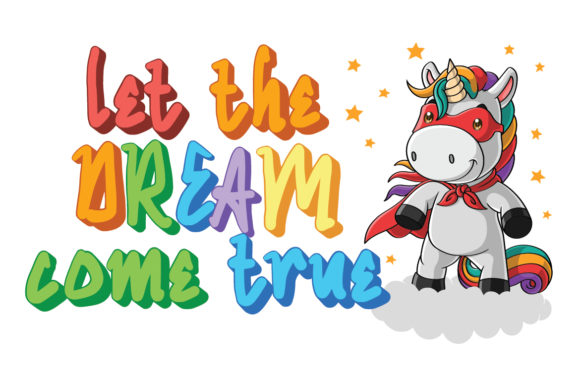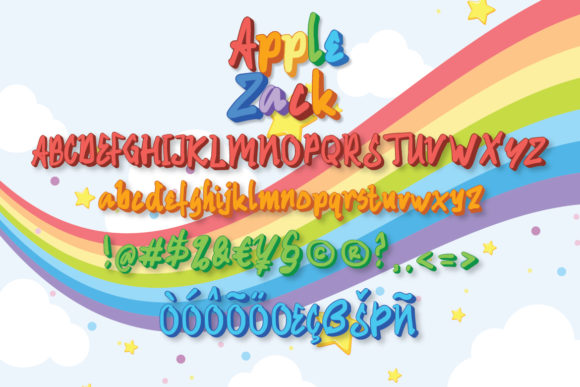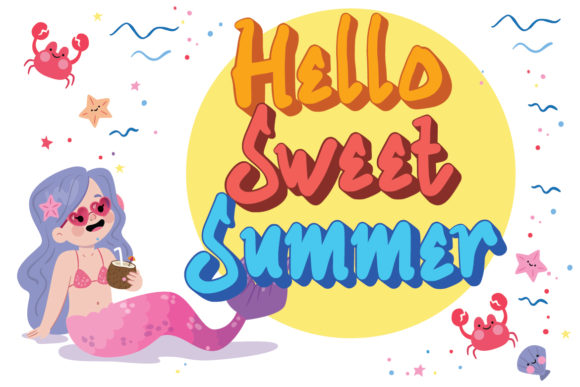
Introducing Applezack Font: Unleash Fun, Quirkiness, and Authenticity in Your Designs
Are you tired of using the same old fonts in your designs? Look no further than Applezack Font, a captivating display font that embodies fun, quirkiness, and authenticity. This enchanting font is perfect for designers and crafters who want to add a touch of whimsy and playfulness to their projects. With Applezack, you can turn any creative idea into a true standout that will leave a lasting impression.
The Characteristics of Applezack Font
Applezack Font is a unique and charming font that is sure to capture the attention of your audience. Its childlike playfulness and quirky design make it perfect for a variety of projects, from kids’ and school projects to creative endeavors that require a dash of fun and personality. The font’s authentic and genuine feel will add a touch of warmth and approachability to your designs, making them more relatable and engaging.
Uses of Applezack Font
Applezack Font is incredibly versatile and can be used in a wide range of projects, including:
- Kids’ and school projects: Add a touch of fun and playfulness to worksheets, posters, and presentations that will delight kids and make learning more enjoyable.
- Creative crafts: Use Applezack Font to add a personal touch to your craft projects, such as handmade cards, gift tags, and scrapbook pages.
- Digital designs: Incorporate Applezack Font into your digital designs, such as social media graphics, blog posts, and website headers, to add a dash of personality and whimsy.
- Branding and advertising: Use Applezack Font to create eye-catching and memorable brand identities and advertisements that will stand out from the crowd.
Benefits of Using Applezack Font
There are many benefits to using Applezack Font in your designs, including:
- Uniqueness: Applezack Font is a one-of-a-kind font that will set your designs apart from the rest.
- Playfulness: The font’s childlike playfulness will add a touch of fun and whimsy to your designs.
- Authenticity: Applezack Font’s authentic and genuine feel will add a touch of warmth and approachability to your designs.
- Versatility: The font can be used in a wide range of projects, from kids’ and school projects to digital designs and branding.
Tips for Using Applezack Font
Here are a few tips for using Applezack Font in your designs:
- Experiment with different sizes and colors: Applezack Font looks great in a variety of sizes and colors, so don’t be afraid to experiment and find the perfect combination for your design.
- Pair with other fonts: Applezack Font pairs well with other fonts, so try combining it with a serif or sans-serif font to create a unique and interesting design.
- Use it sparingly: While Applezack Font is a fun and playful font, it can be overwhelming if used too much. Use it sparingly to add a touch of personality to your design.
Applezack Font is a unique and captivating display font that embodies fun, quirkiness, and authenticity. With its childlike playfulness and quirky design, it’s perfect for designers and crafters who want to add a touch of whimsy and personality to their projects. Whether you’re working on a kids’ and school project or a creative endeavor, Applezack Font is sure to turn your ideas into true standouts. So why wait? Get creative with Applezack Font today and unleash your inner designer!